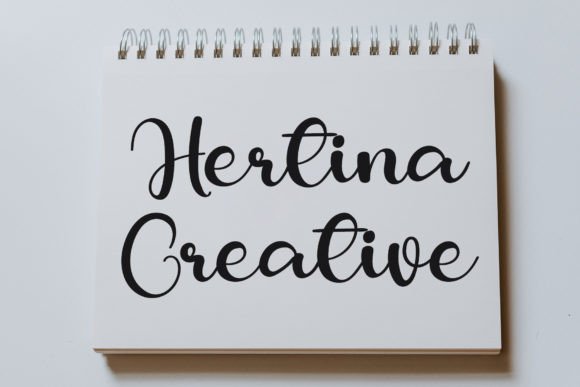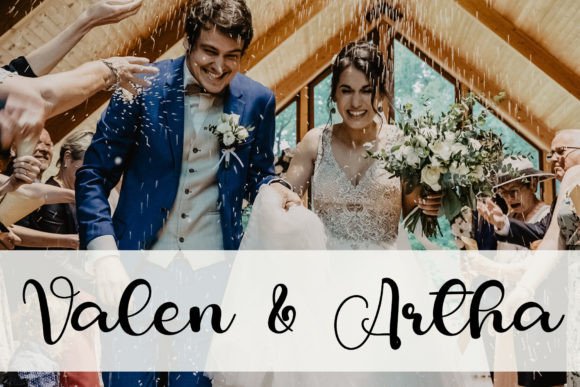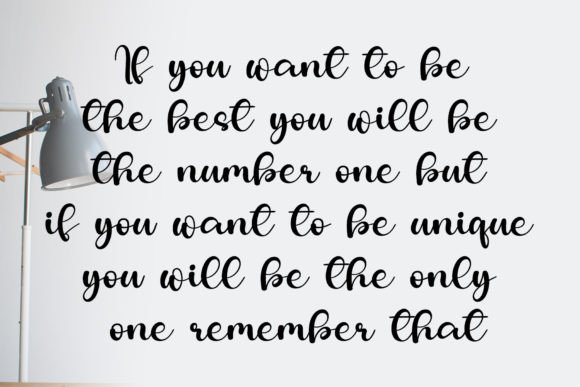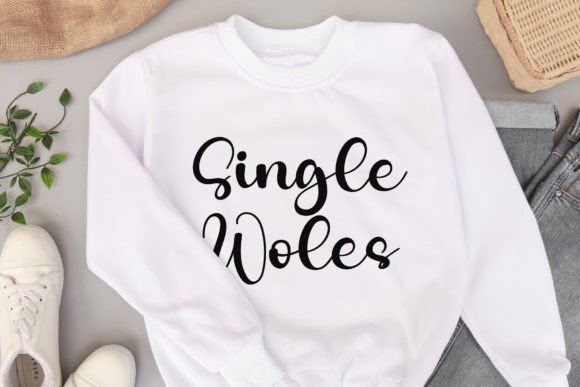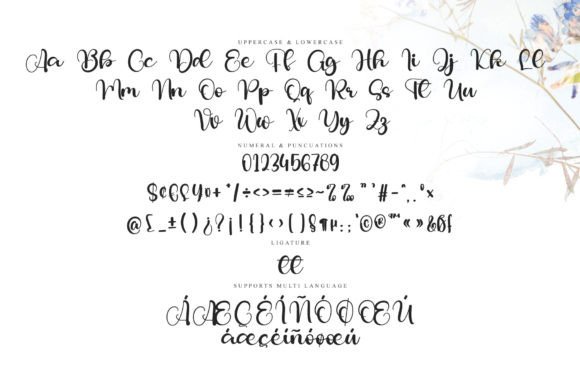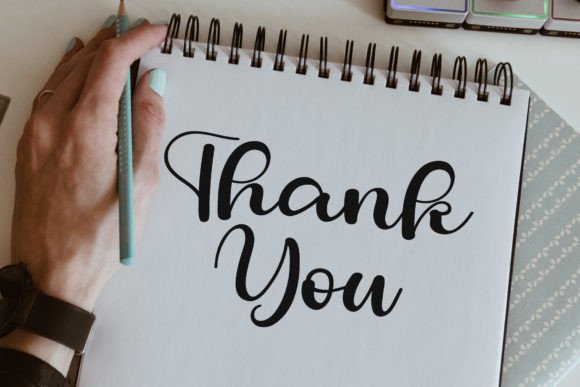
Introducing Adjusted Font: A Festive and Merry Typeface for the Holiday Season
The holiday season is upon us, and with it comes the desire to create festive and merry designs that capture the spirit of the season. As a designer or crafter, you’re likely on the lookout for the perfect typeface to add a touch of enchantment to your projects. Look no further than Adjusted Font, a decorative and whimsical typeface that’s perfect for greeting cards, gift tags, and holiday-themed projects.
What is Adjusted Font?
Adjusted Font is a unique and festive typeface that’s designed to bring a cheerful and nostalgic ambiance to your words. With its decorative elements and whimsical flair, it’s the perfect addition to any holiday-themed project. Whether you’re creating greeting cards, gift tags, or festive banners, Adjusted Font is sure to add a touch of magic to your designs.
Key Features of Adjusted Font
- Decorative Elements: Adjusted Font features decorative elements that add a touch of festivity to your designs. From intricate swirls to whimsical flourishes, this font is sure to make your projects stand out.
- Whimsical Flair: With its whimsical flair, Adjusted Font brings a playful and nostalgic feel to your designs. Perfect for creating holiday-themed projects that are both fun and festive.
- Easy to Read: Despite its decorative nature, Adjusted Font is easy to read and understand. Making it perfect for use in greeting cards, gift tags, and other holiday-themed projects.
- Versatile: Adjusted Font is a versatile typeface that can be used in a variety of projects. From festive banners to holiday-themed social media graphics, this font is sure to add a touch of enchantment to your designs.
Using Adjusted Font in Your Designs
Adjusted Font is perfect for a variety of holiday-themed projects, including:
- Greeting Cards: Add a touch of festivity to your holiday greeting cards with Adjusted Font. Perfect for creating unique and personalized cards for friends and family.
- Gift Tags: Add a touch of magic to your gift tags with Adjusted Font. Perfect for creating unique and personalized tags for gifts.
- Holiday-Themed Banners: Create festive banners with Adjusted Font that are perfect for decorating your home or office for the holiday season.
- Social Media Graphics: Add a touch of festivity to your holiday-themed social media graphics with Adjusted Font. Perfect for creating unique and engaging graphics for your social media channels.
Tips for Getting the Most Out of Adjusted Font
To get the most out of Adjusted Font, try the following tips:
- Experiment with Different Sizes: Adjusted Font looks great in a variety of sizes. Experiment with different sizes to find the one that works best for your project.
- Pair with Other Fonts: Adjusted Font pairs well with other fonts. Try pairing it with a sans-serif font for a fun and modern look.
- Use in Combination with Images: Adjusted Font looks great in combination with images. Try using it to add a touch of festivity to your holiday-themed images.
Adjusted Font is a festive and merry typeface that’s perfect for adding a touch of enchantment to your holiday-themed projects. With its decorative elements and whimsical flair, it’s sure to bring a cheerful and nostalgic ambiance to your words. Whether you’re a designer or crafter, Adjusted Font is a must-have for any holiday-themed project.